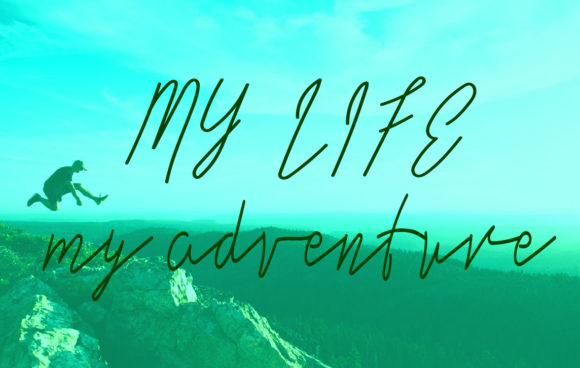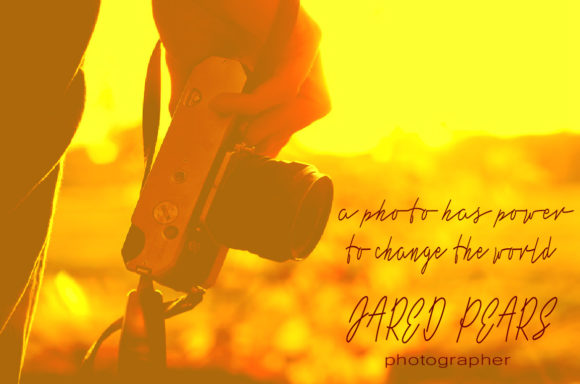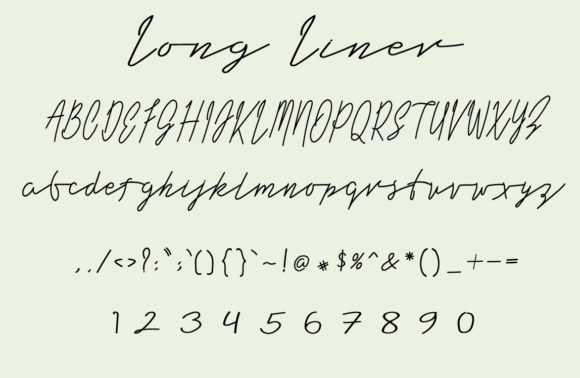
Introduction to Long Liner Font Font
Fonts play a crucial role in design, and the Long Liner Font font is a typeface that brings both character and versatility to any project. Whether you’re working on a branding project, a website, or a print design, the Long Liner Font font offers a unique style that can elevate your work.
The Long Liner is an elegant monoline script font.
It has a luxurious feel and a natural writing style Itβs suitable for logos, watermarks on photography, signatures, quotes, album covers, business cards, clothing, magazines, posters and much more.
Key Features of Long Liner Font Font
Why Choose Long Liner Font Font?
The Long Liner Font font is more than just a typeface β it’s a design tool that helps you communicate your message with style and clarity. Its unique character set and versatile design make it suitable for a wide range of applications, from elegant invitations to bold headlines.
With its carefully crafted letterforms and balanced proportions, the Long Liner Font font ensures readability and visual appeal across all mediums.
What makes Long Liner Font font special?
The Long Liner Font font stands out with its unique design, exceptional readability, and versatility across various design applications.